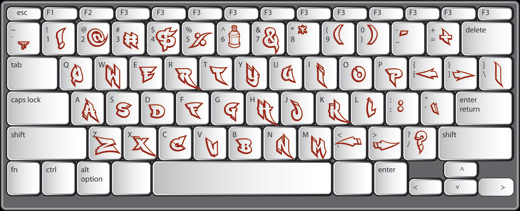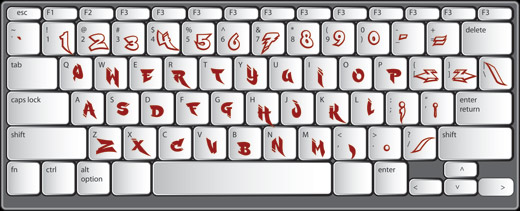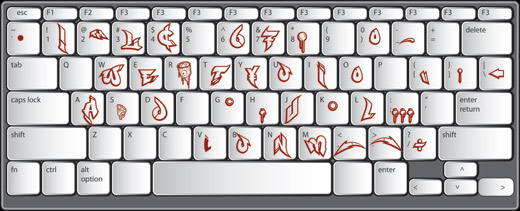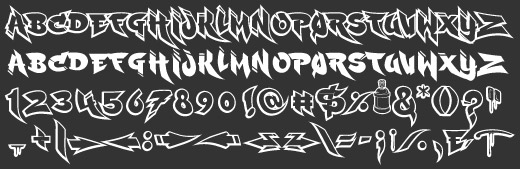
Ruckus™
is a simple & legible graffiti style with a thick, crisp outline style on the capitol letter keys & the matching fill style on the lowwercase keys. This font includes a generous array of numbers, symbols, arrows & other glyphs.
The Ruckus™ font contains both the outline style & the fill in one font so you can easily combine them to create simple & easy to read pieces like the ones shown below.
Ruckus™ sample art